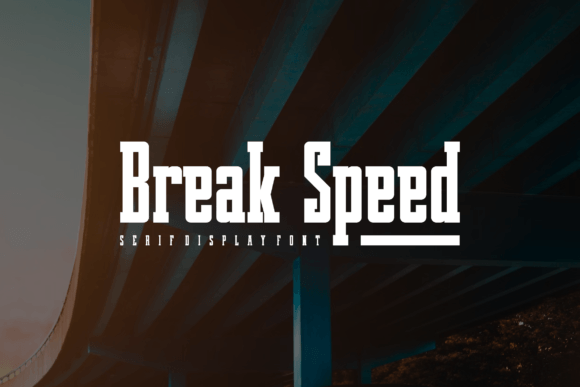
Introducing BreakSpeed Font: The Ultimate Modern Display Font
Have you ever been in the middle of a design project, and suddenly, you’re stuck on finding the perfect font? I recall a recent experience where I was working on a logo design for an eSports team, and I just couldn’t find a font that screamed modernity and boldness. That’s when I stumbled upon **BreakSpeed Font**, and it completely transformed my design. In this article, I’ll share my journey with BreakSpeed Font, its features, and how you can make the most of it in your designs.
First Impressions: What I Love About BreakSpeed Font
BreakSpeed Font is a bold and authentic display font that has quickly become a staple in my design toolkit. Here are some things I love about it:
• ✨ Unique and Modern Design: BreakSpeed Font boasts a sleek and contemporary look that’s perfect for branding projects, logos, eSports, and more.
• ✅ Versatility: This font stands out in a wide range of contexts, making it an excellent choice for various design projects.
• 💡 Excellent for Headings and Titles: The font’s bold nature makes it ideal for headings and titles, adding a touch of professionalism to any design.
While BreakSpeed Font has won me over, there are a few quirks to consider:
• 🤔 Legibility at Small Sizes: Like many display fonts, BreakSpeed Font can be a bit tricky to read at smaller sizes. It’s best used for headings and titles rather than body text.
• ⚠️ Glyph Limitations: While the font has a wide range of glyphs, it might not have every special character you need. It’s essential to review the font’s capabilities before committing to a project.
The Designer Inspiration Behind BreakSpeed Font
BreakSpeed Font was designed with the modern designer in mind. Inspired by the fast-paced world of eSports and technology, the font’s creator aimed to craft a bold and authentic display font that would stand out in a crowded digital landscape. The result is a font that’s both sleek and attention-grabbing, perfect for designers looking to make a statement.
What is BreakSpeed Font best used for? BreakSpeed Font is ideal for branding projects, logos, eSports, and any design that requires a bold and modern display font.
Is BreakSpeed Font suitable for body text? While BreakSpeed Font can be used for body text, it’s primarily designed for headings and titles. Its bold nature may make it difficult to read in larger blocks of text.
Does BreakSpeed Font have OpenType features? Yes, BreakSpeed Font includes OpenType features and glyphs, allowing for more creative freedom and customization in your designs.